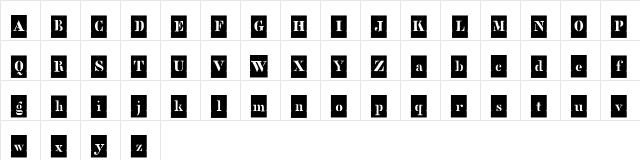
StencilFullBETA Regular
Design Context for StencilFullBETA Typeface
StencilFullBETA borrows the utilitarian aesthetic of stencil lettering, with its characteristic cutaways and no-frills construction lending an industrial edge.
A strong choice for packaging that needs edge, warehouse aesthetics, and rough-and-ready visual identities.
Pro Tip: Use StencilFullBETA at large sizes on packaging, posters, or apparel where the stencil cutaways read clearly. Avoid small sizes where those gaps become visual noise.